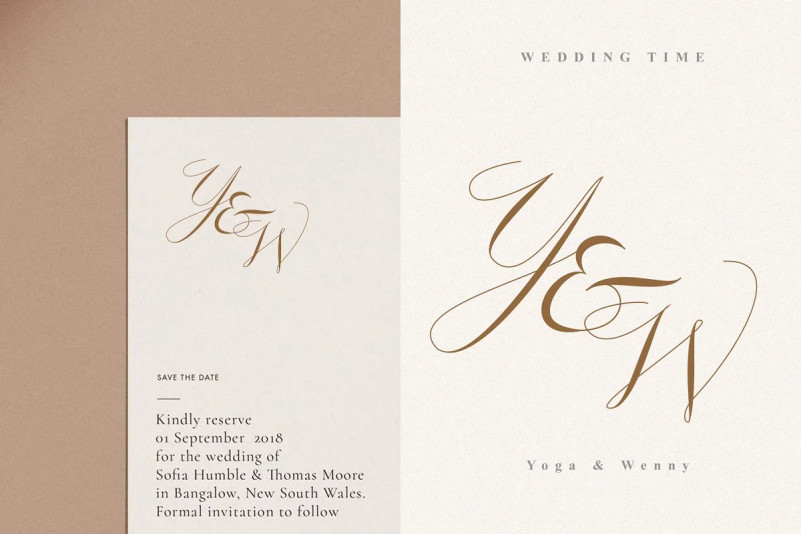
Lucylove Font
Lucylove – Modern Calligraphy Font. Elegant Beauty Script font, it combine in one font, use this font for anything beauty place for your wedding name, logo, headline, cover book, magazine, website and many more